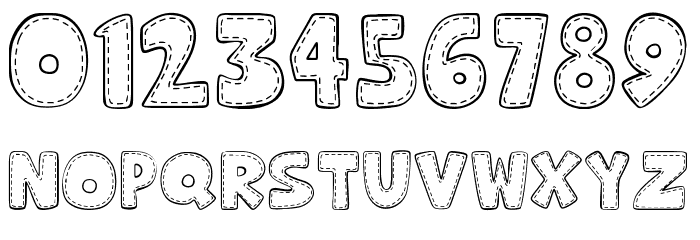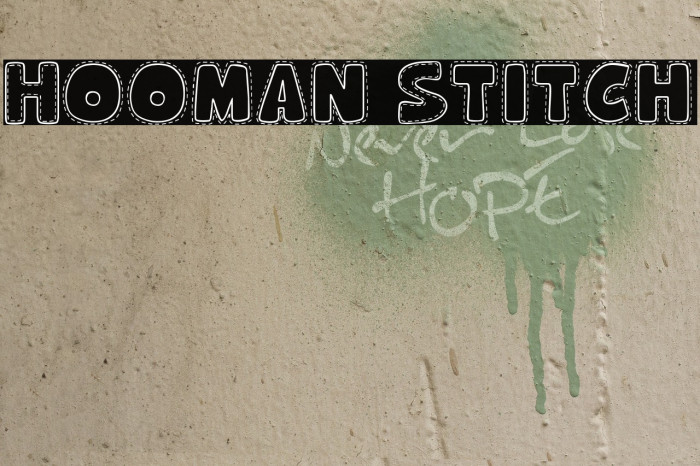
Hooman Stitch Font
Hooman Stitch Description
This playful and whimsical font features a stitched outline around each character, giving it a handmade, crafty appearance. The letters are bold and rounded, with a consistent thickness that adds to the friendly and approachable feel. The stitching detail is uniform across all characters, creating a cohesive look. This font is ideal for projects that require a fun and creative touch, such as children's books, craft projects, or playful branding. The numbers and special characters maintain the same stitched style, ensuring versatility across different design needs.
A playful, stitched outline font with bold, rounded characters from Cartoon fonts.
- Proposed Projects: Ideal for children's books, craft projects, playful branding, and creative invitations.
- Overall Style: Playful, Crafty
- Use Case: Headlines, Logos, Creative Projects